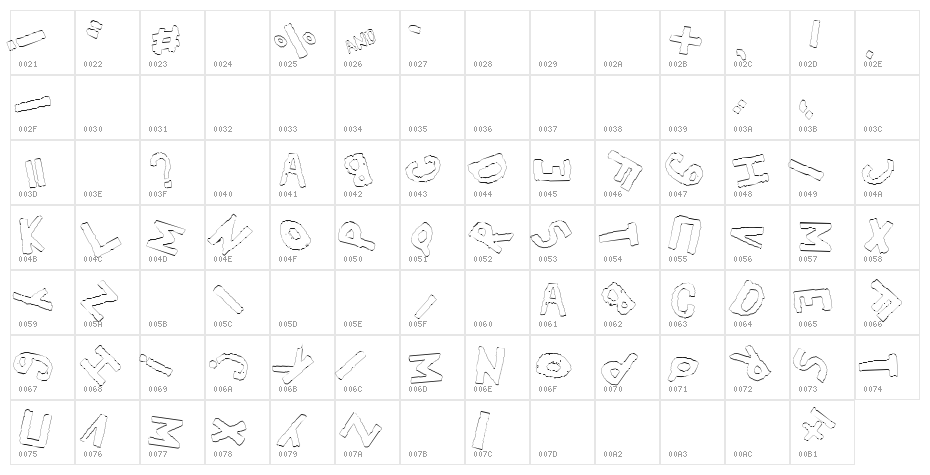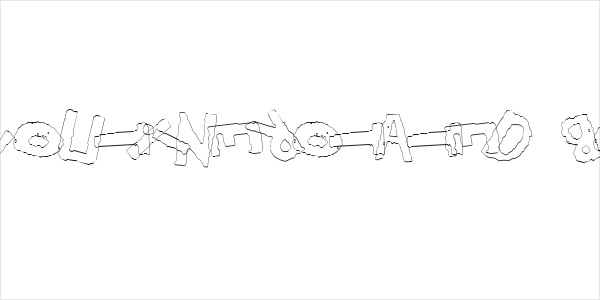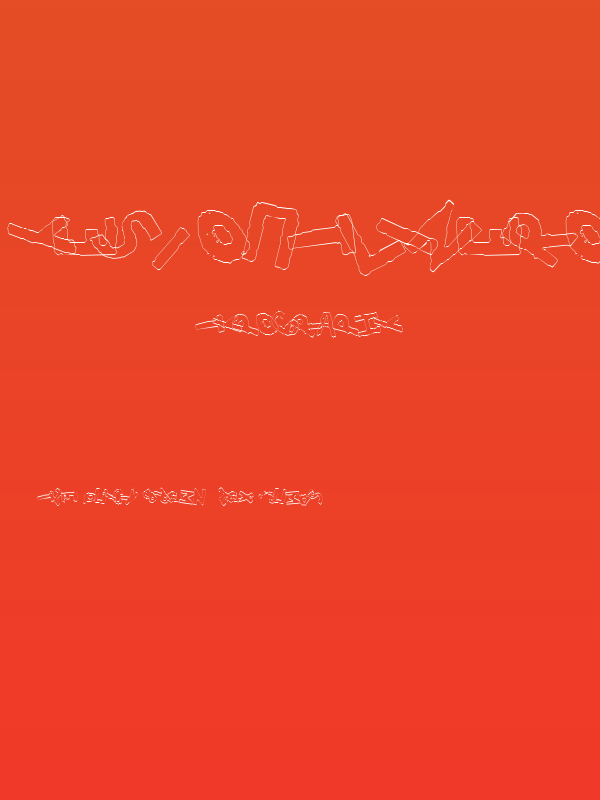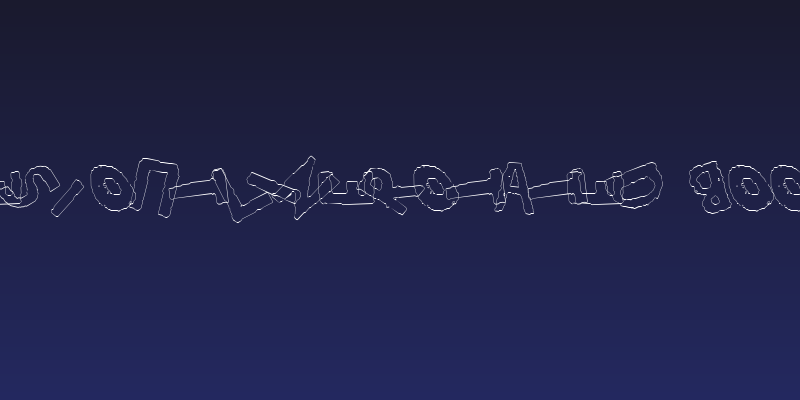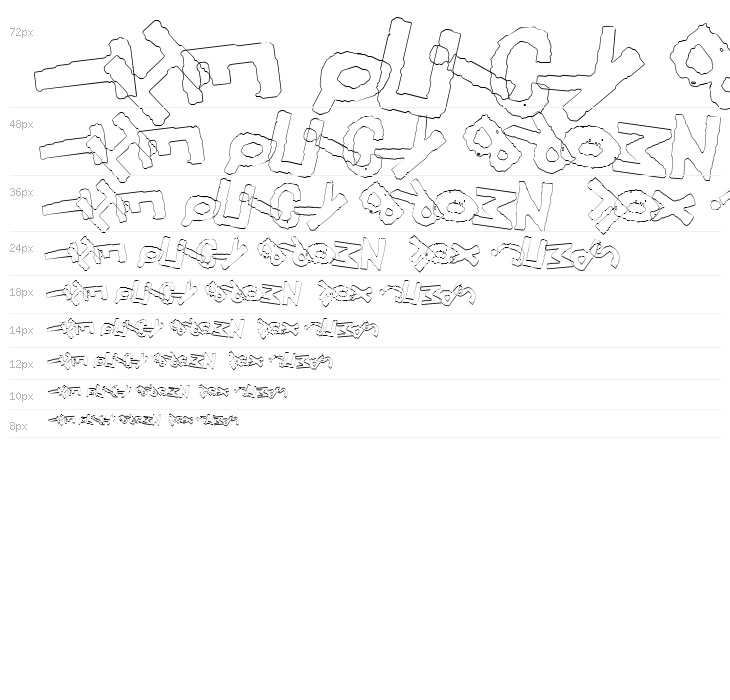
YES_outlinerotated Book Font
YES_outlinerotated Book Description
This font features a playful and unconventional design with each character appearing as if it has been hand-drawn with a continuous line. The letters are outlined and have a whimsical, almost cartoonish quality, with irregular shapes and angles that give them a dynamic and energetic feel. The font maintains a consistent stroke width throughout, contributing to its unique and artistic appearance. The characters are slightly rotated and skewed, adding to the overall quirky and creative style. This font is ideal for projects that require a fun and informal touch, such as children's books, creative posters, or playful branding materials.
| Overall Style | Playful and Artistic |
| Use Case | Headlines, Logos, Creative Projects |
| Proposed Projects | Ideal for children's books, creative posters, and playful branding materials. |